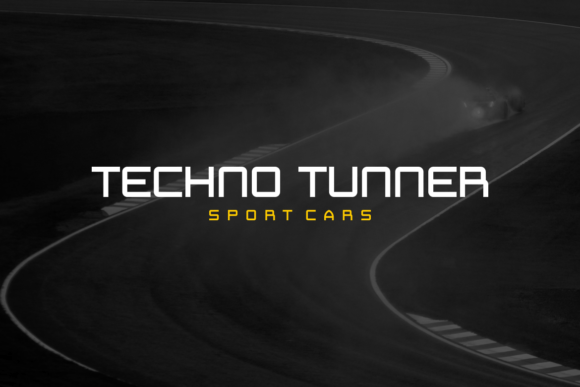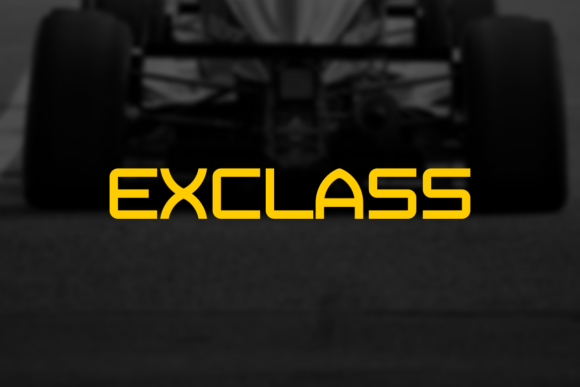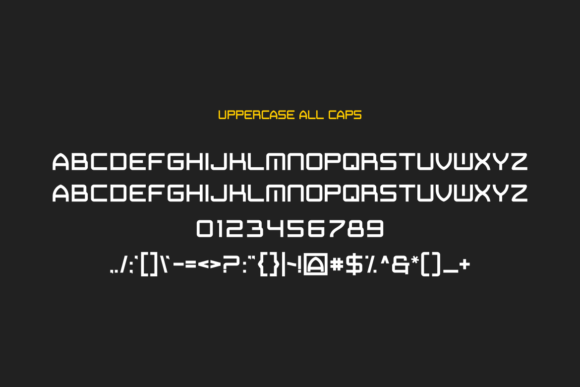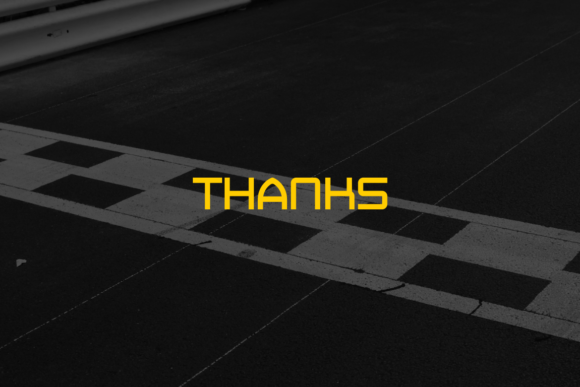
Introducing Exclass Font: The Epitome of Modern Sans Serif Elegance
In the realm of typography, fonts play a pivotal role in conveying messages, evoking emotions, and creating a lasting impression. Among the myriad of fonts available, Exclass stands out as a beacon of modernity and sophistication. This article delves into the world of Exclass, a contemporary sans serif font that is redefining the aesthetics of digital and print media.
The Essence of Exclass Font
Exclass is a modern sans serif font that boasts a clean and stylish appearance. Its design is characterized by smooth and straightforward letters, which contribute to its exceptional readability. This font is meticulously crafted to cater to the needs of designers and crafters who seek a typeface that can seamlessly transition between digital platforms and print materials.
Key Features of Exclass Font
- Clean and Stylish Look: Exclass exudes a sense of minimalism and elegance, making it an ideal choice for projects that demand a sleek and contemporary look.
- Smooth and Straightforward Letters: The font’s letters are designed to be clear and legible, ensuring that the text is easy to read across various mediums.
- Versatility: Exclass is versatile and can be used for a wide range of applications, from digital interfaces to print publications.
- Contemporary and Professional Feel: The font imbues any text with a modern and professional aesthetic, making it perfect for branding, advertising, and editorial projects.
Applications of Exclass Font
The versatility of Exclass makes it suitable for numerous applications. Here are some of the key areas where Exclass can make a significant impact:
- Digital Media: Exclass is optimized for digital use, making it an excellent choice for websites, mobile apps, and digital advertising.
- Print Media: Its clean and stylish look also makes it suitable for print materials such as brochures, magazines, and business cards.
- Branding and Identity: Exclass can be used to create a strong brand identity, conveying a sense of modernity and professionalism.
- Editorial and Publishing: The font’s readability and elegance make it an excellent choice for editorial projects, including books, newspapers, and magazines.
Why Choose Exclass Font?
In a world where typography plays a crucial role in communication, Exclass offers a unique combination of style, readability, and versatility. Here are some reasons why designers and crafters should consider Exclass for their projects:
- Unique Aesthetic: Exclass offers a fresh and modern look that can help projects stand out in a crowded digital and print landscape.
- Improved Readability: The font’s smooth and straightforward letters ensure that text is easy to read, enhancing the overall user experience.
- Flexibility: Exclass can be used across various platforms and applications, making it a valuable addition to any designer’s toolkit.
Exclass font represents the pinnacle of modern sans serif design, offering a clean, stylish, and highly readable typeface that is ideal for both digital and print use. Its versatility, combined with its contemporary and professional feel, makes it an indispensable resource for designers and crafters. Whether you’re working on a branding project, digital application, or print publication, Exclass is sure to elevate your work to new heights of aesthetic excellence.
In conclusion, Exclass font is a game-changer in the world of typography, offering a perfect blend of style, functionality, and versatility. By integrating Exclass into your design workflow, you can create visually stunning and highly readable content that captivates your audience and leaves a lasting impression.